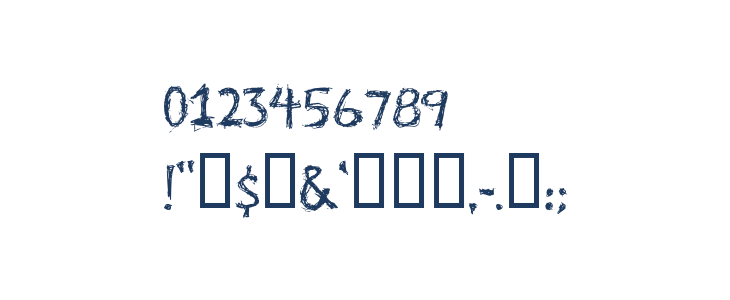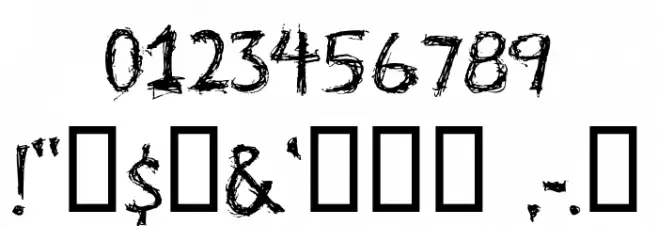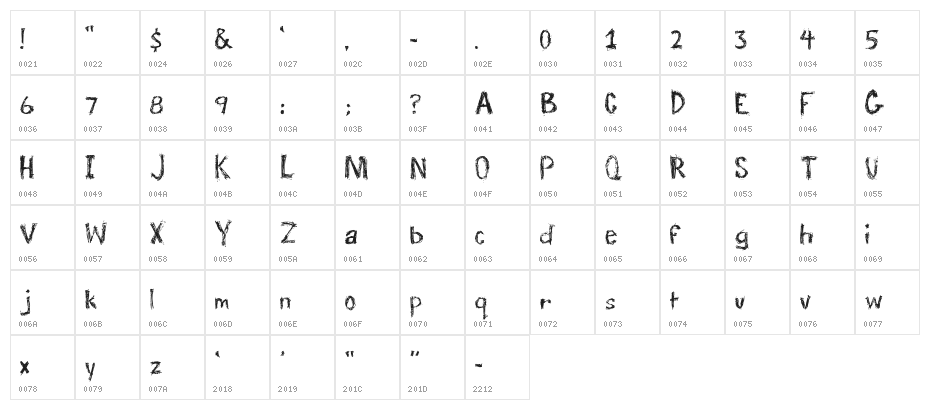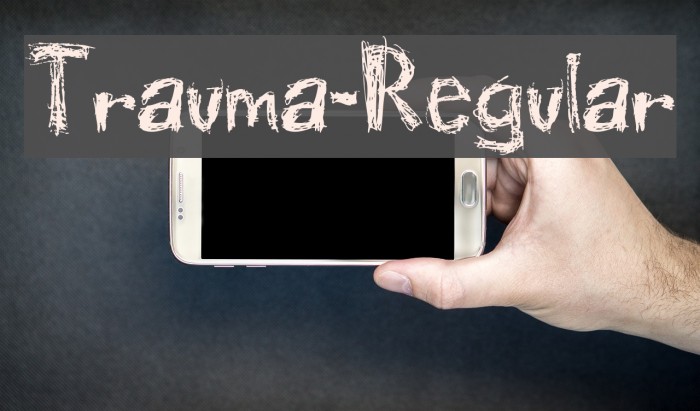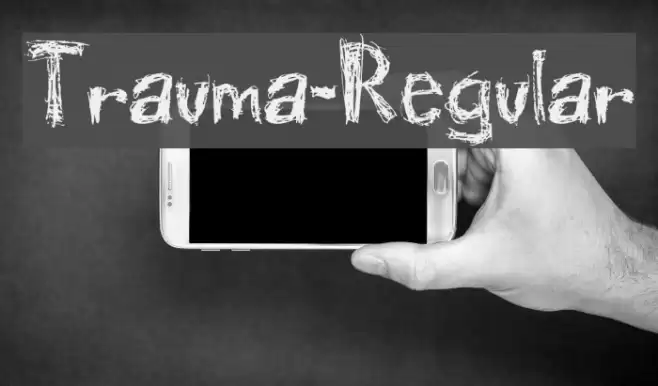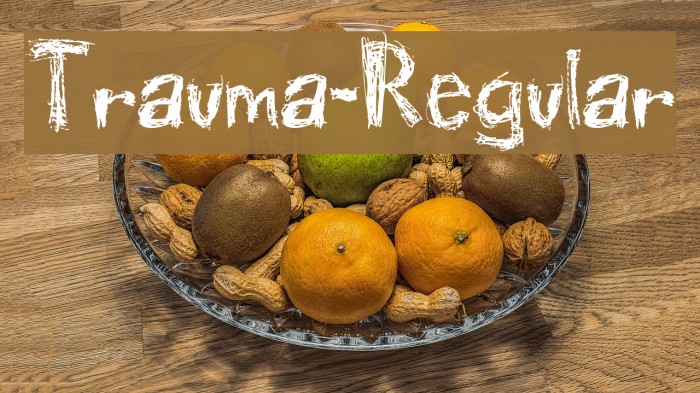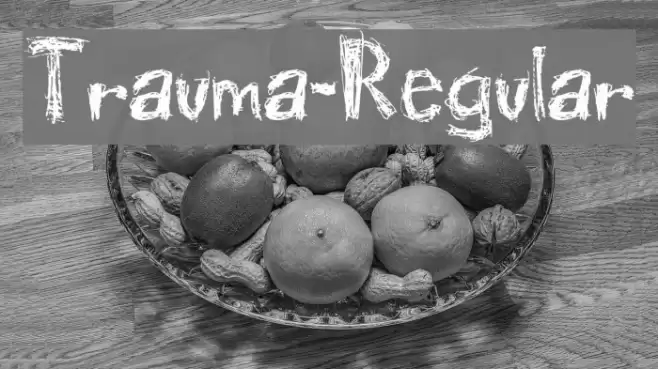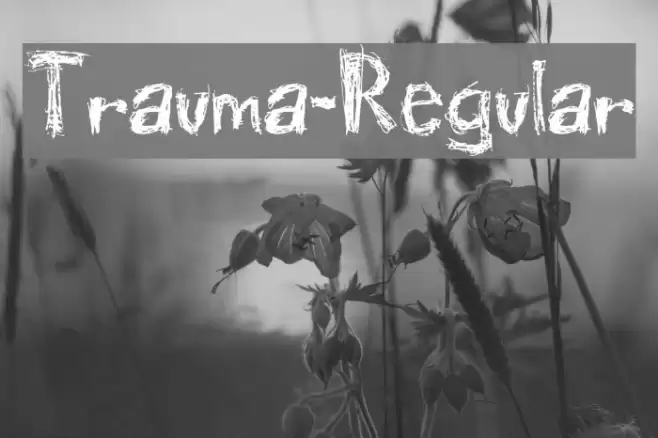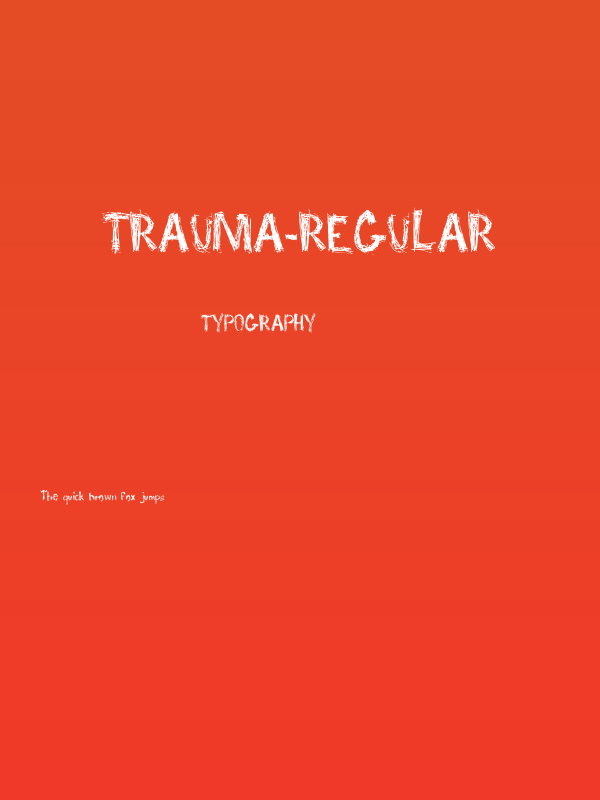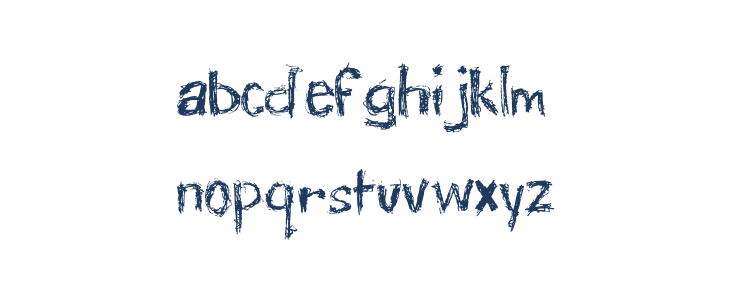
Trauma-Regular Font
Trauma-Regular Description
This font features a distressed, grunge style with rough, uneven edges that give it a raw and edgy appearance. The characters are bold and impactful, with a hand-drawn quality that suggests a sense of urgency and intensity. The uppercase and lowercase letters maintain a consistent style, with jagged lines and a slightly chaotic structure. Numbers and special characters follow the same aesthetic, enhancing the overall rugged look. This font is ideal for projects that require a dramatic and unconventional touch, such as posters, album covers, or any design that aims to convey a sense of rebellion or nonconformity.
| Overall Style | Grunge, Edgy |
| Proposed Projects | Ideal for posters, album covers, and rebellious design themes. |